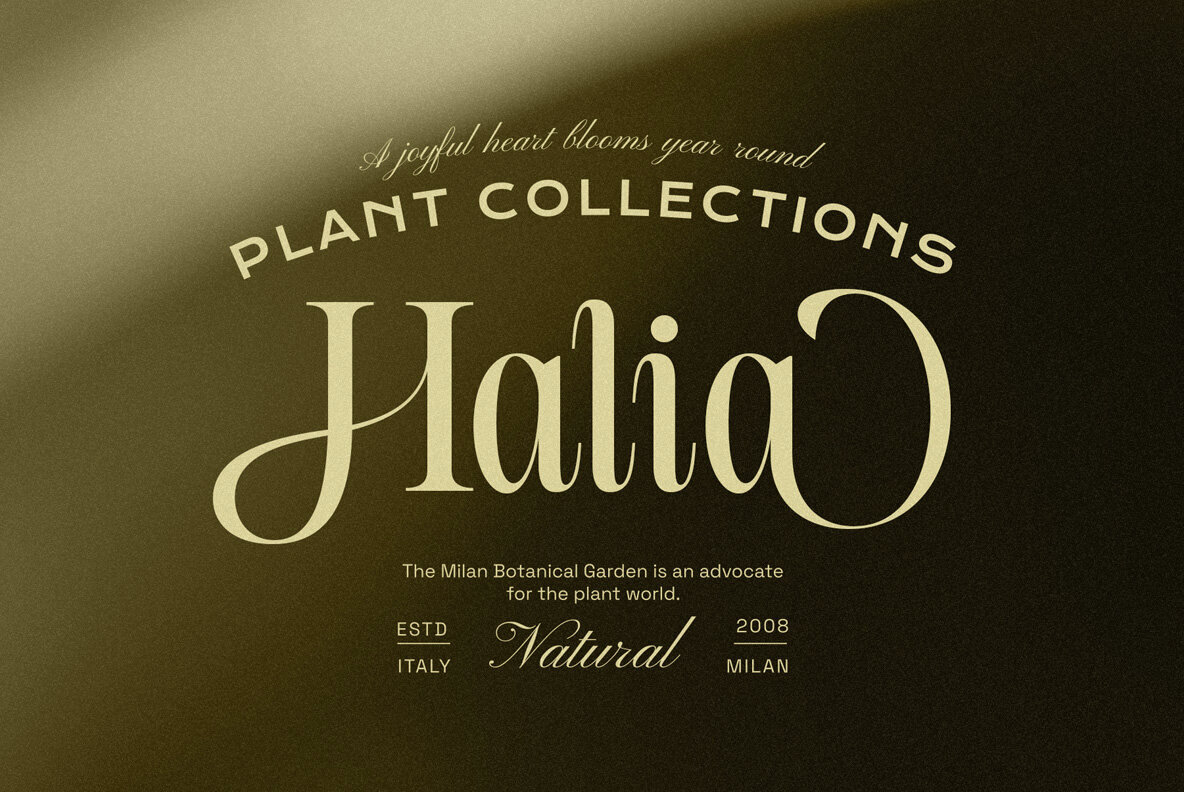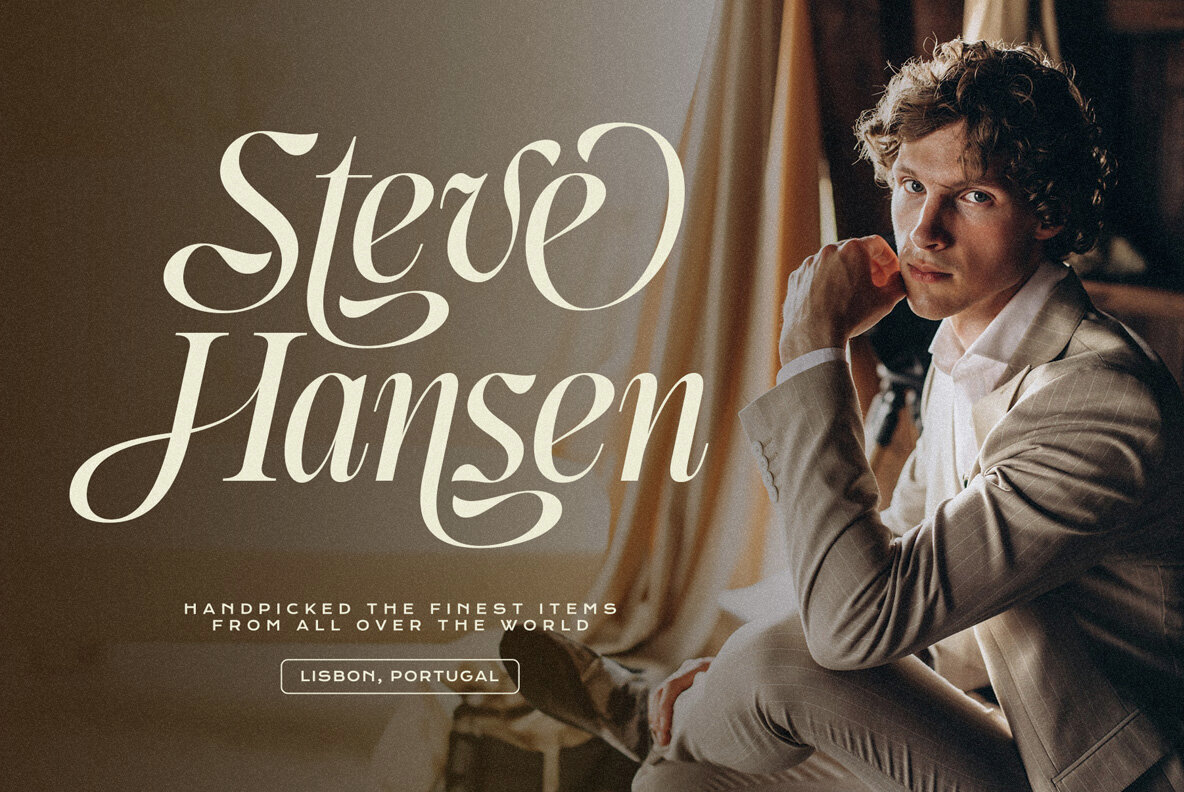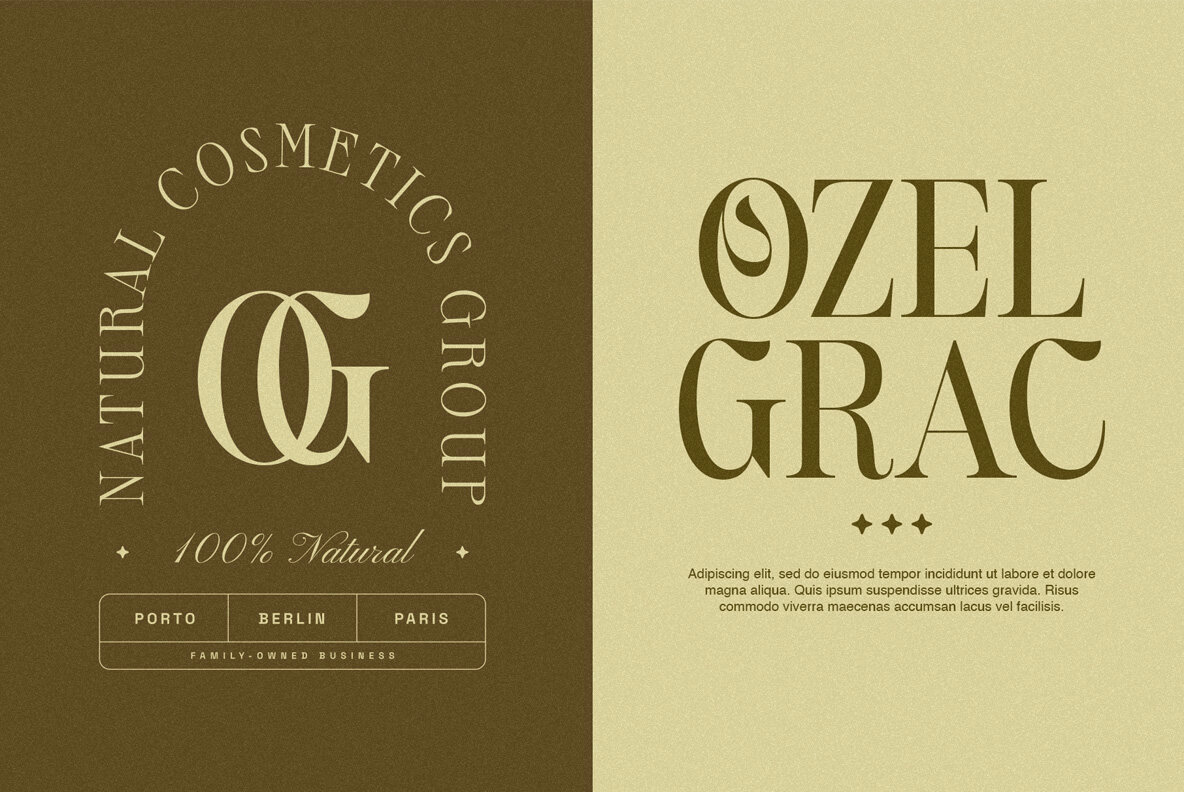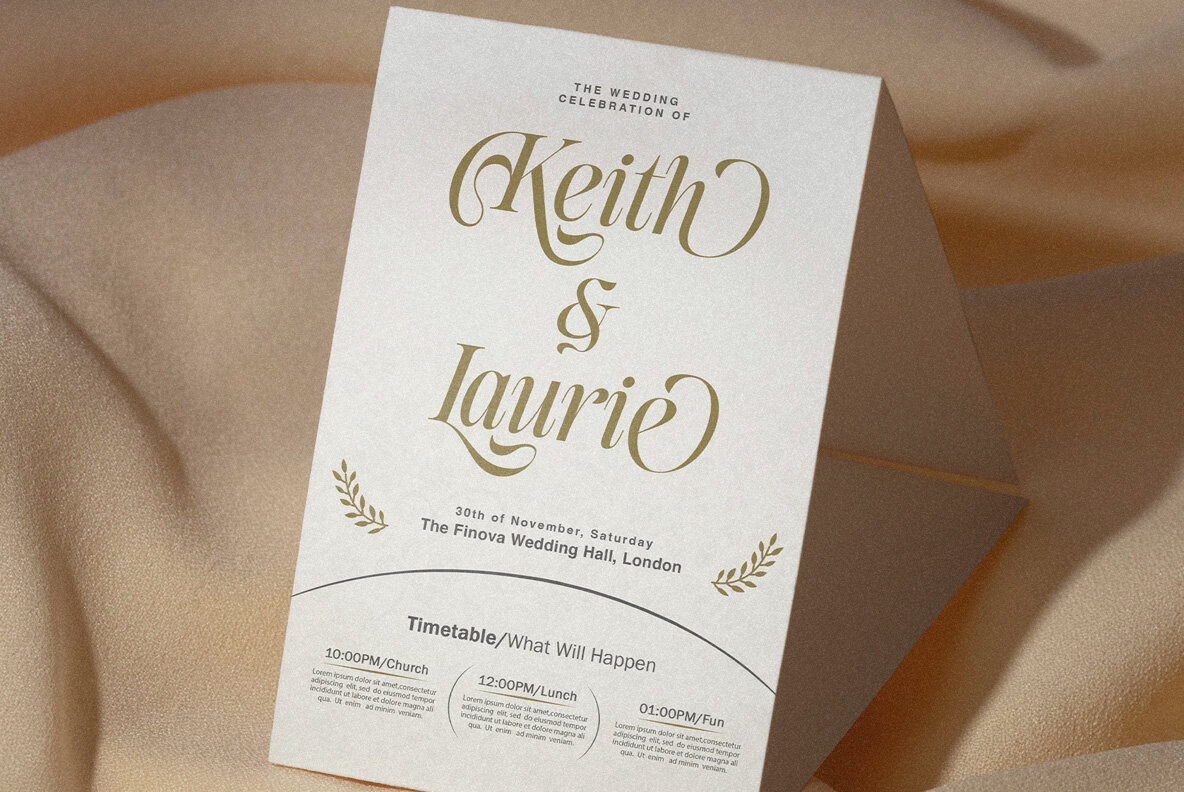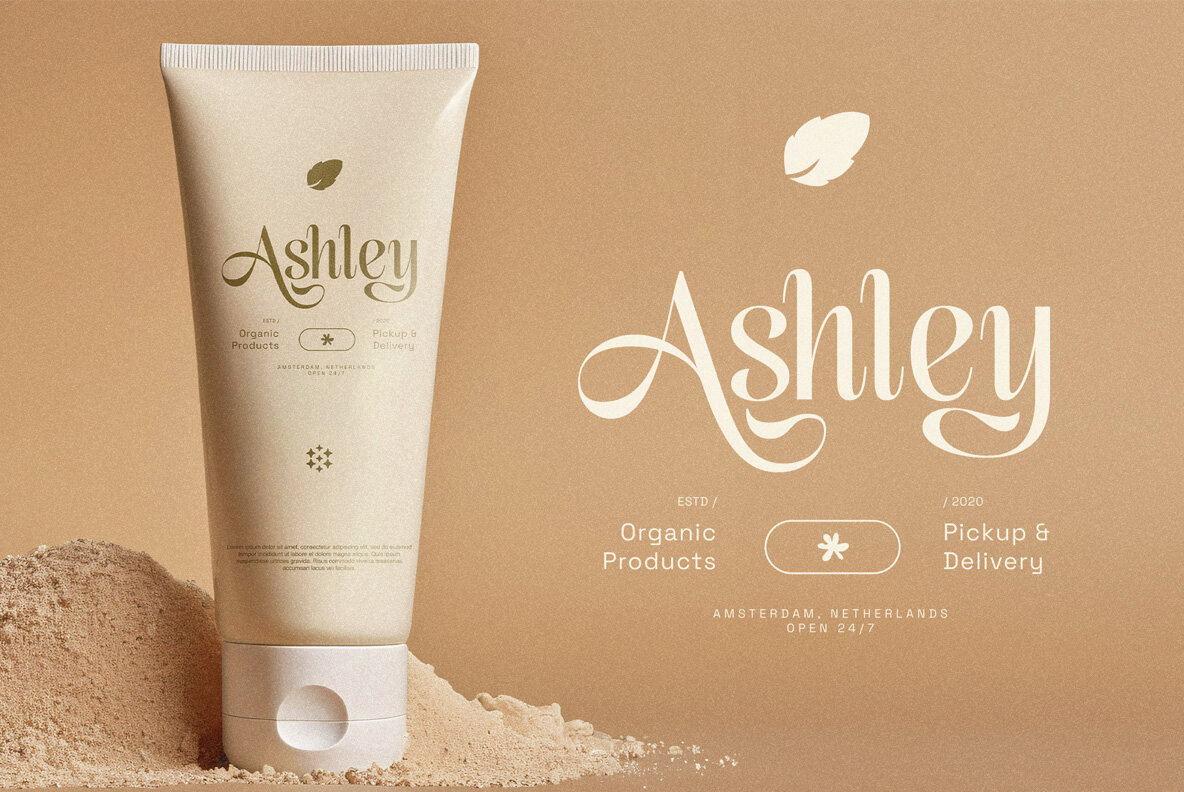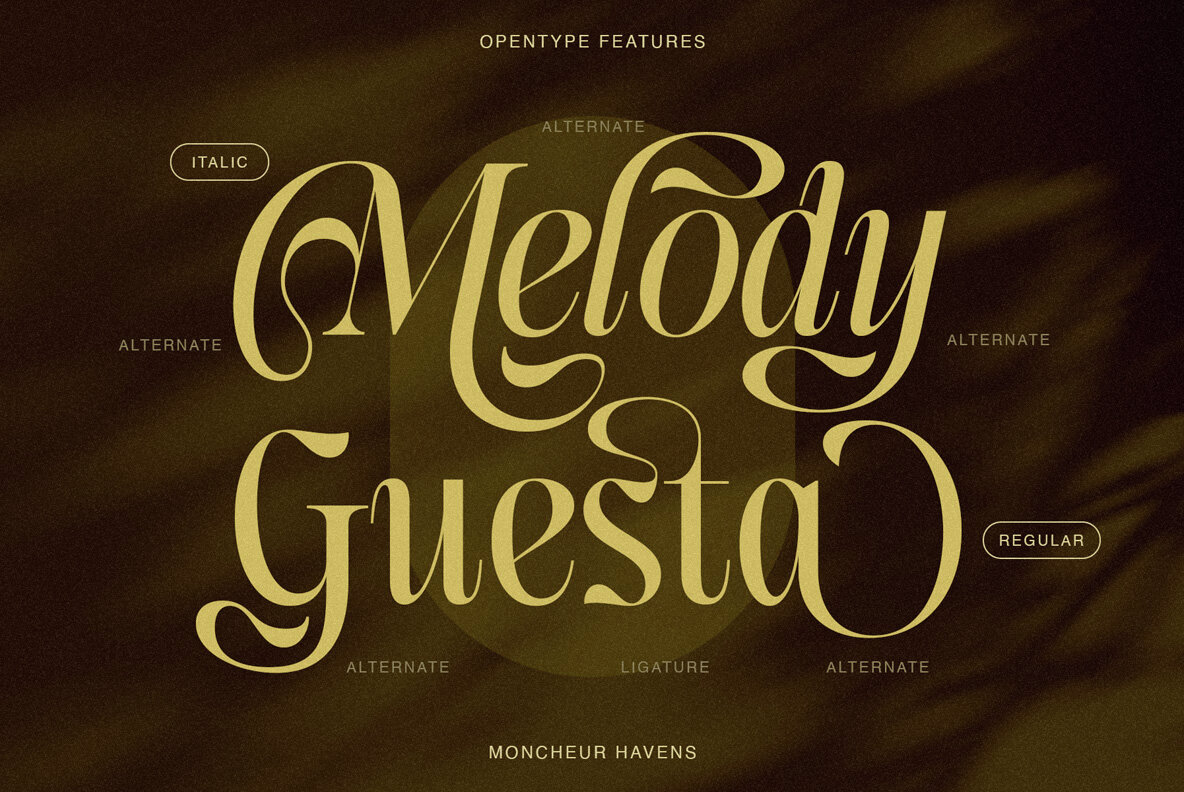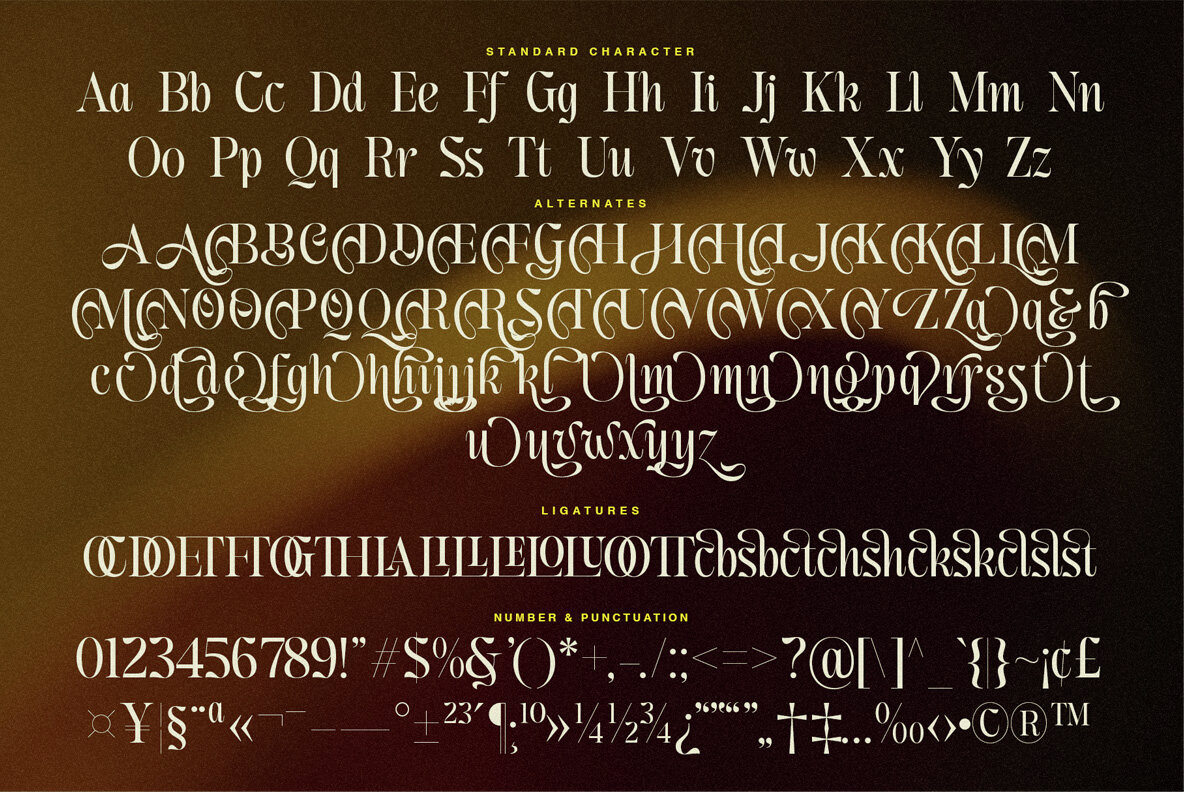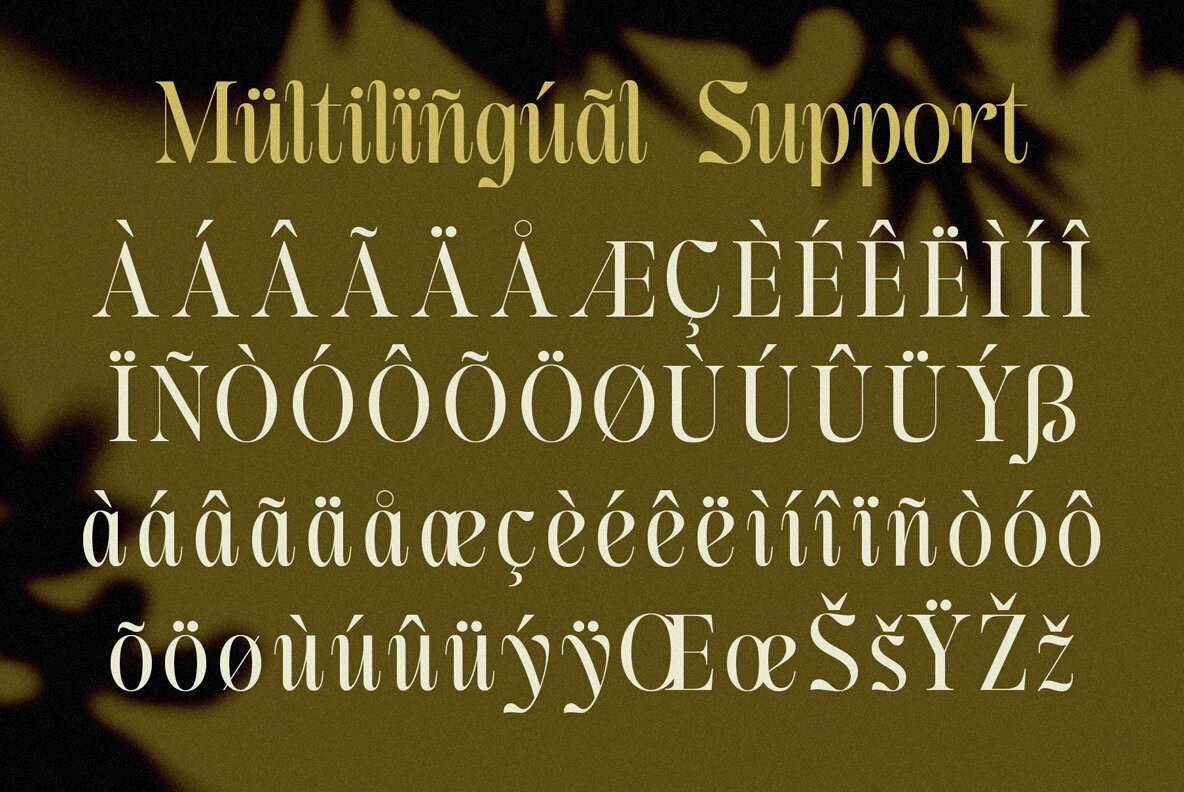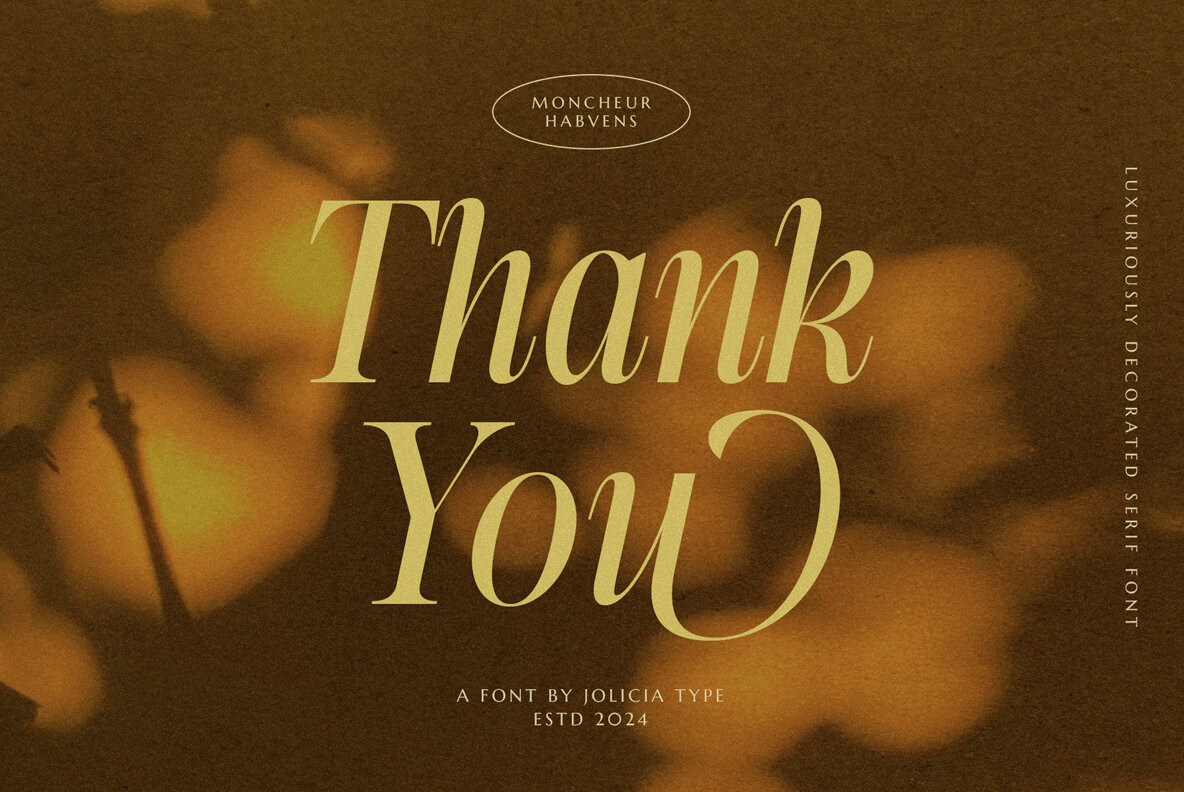
Moncheur Havens Font
Moncheur Havens is an elegant serif font that marries classic sophistication with a modern twist. Available in both Regular and Italic styles, this font adds a touch of luxury to any design. Its finely crafted details ensure captivating and easily readable text, making it ideal for various projects, including branding and editorial work.
Enhance your creative possibilities with Moncheur Havens' beautiful alternative swashes. Each alternative character is designed with graceful curves, offering flexibility and variety. This allows you to create unique and memorable designs effortlessly. Whether you’re working on a logo, a headline, or a body of text, this font provides a refined and polished look for all your design needs.